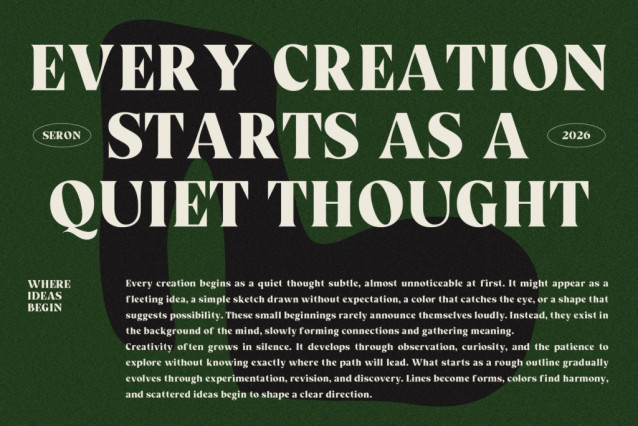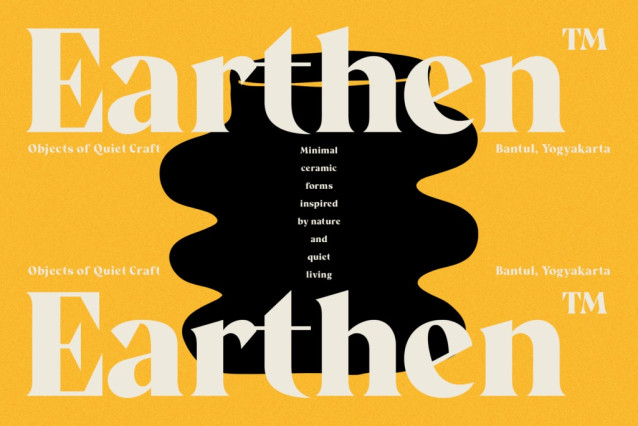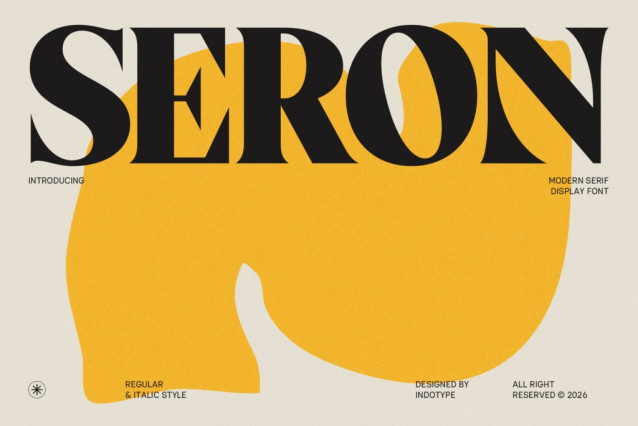
Seron Font
Seron Font is a bold display serif typeface that commands the page with the confidence of a landmark. Designed by Indotype, Seron bridges the classic authority of high-contrast serif typography with a distinctly modern display sensibility — delivering letterforms so large, so dense, and so optically refined that they function as visual architecture rather than mere text. This is type designed not to be read in a hurry, but to be felt at a glance.
Design Characteristics
Seron’s defining quality is its extreme stroke contrast — the hallmark of the Didone and Modern serif tradition, pushed to its expressive limits. Thick vertical stems swell to near-maximum weight, while the horizontal hairline strokes thin to near-invisibility, creating a tension between mass and delicacy that is visually electric at display scale. The result is a typeface that carries the structural authority of a classical typeface and the compositional drama of contemporary editorial design. The letterforms are constructed with razor-sharp precision: flat, unbracketed serifs sit at perfect right angles to the stems, reinforcing the geometric discipline at the heart of the design. Perfectly vertical stress ensures mathematical consistency across every glyph, while generous apertures and open counters maintain clarity even when letters are set tightly and at extreme sizes. The overall proportions are wide and confident — Seron occupies space deliberately, without apology. The Italic style introduces a subtle forward lean and optical elegance that softens the upright weight’s structural authority into something more expressive and editorial. Together, the Regular and Italic styles give designers a versatile pairing for typographic hierarchy within a single typeface family.